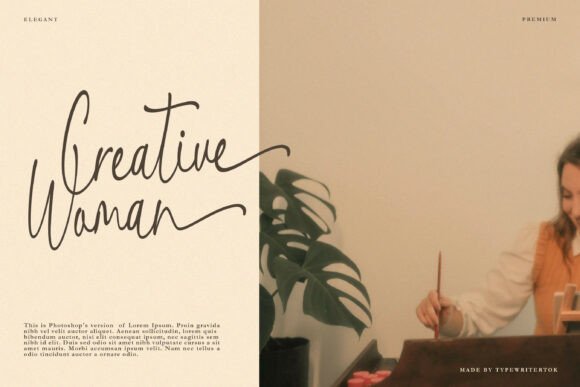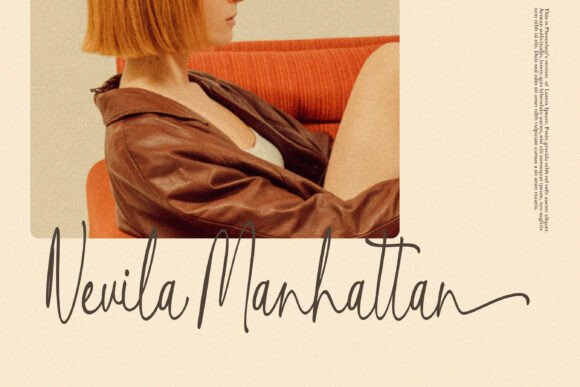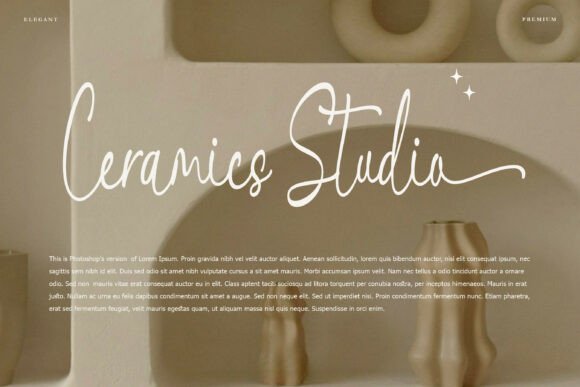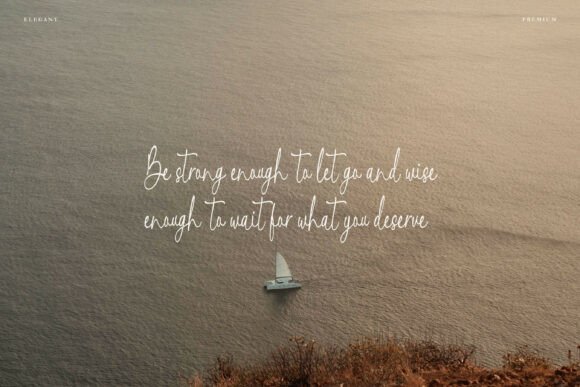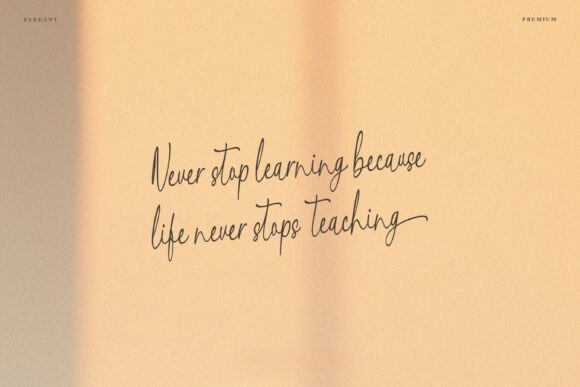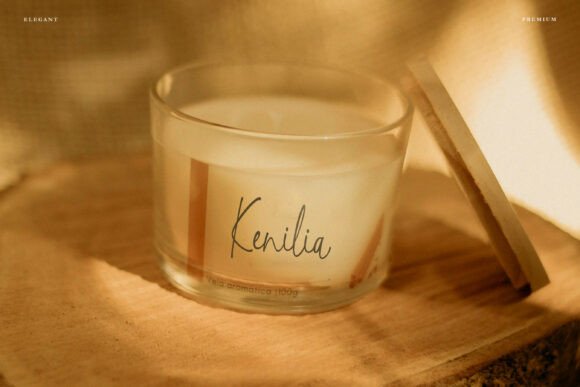
Introducing Benetta Font: Elevate Your Designs with Elegant Handwritten Charm
In the world of typography, few fonts manage to capture the essence of elegance, warmth, and natural charm as effortlessly as Benetta Font. This beautiful handwritten script typeface is meticulously designed to bring a touch of sophistication and personality to your designs, making it an ideal choice for creative projects that demand a refined aesthetic. Whether you’re a designer, crafter, or simply someone who appreciates the art of typography, Benetta Font is sure to captivate you with its smooth flowing strokes, graceful curves, and expressive handwritten details.
The Characteristics of Benetta Font
Benetta Font boasts a modern script character that is both stylish and versatile. Its key features include:
- Smooth Flowing Strokes: Benetta’s strokes are fluid and seamless, creating a sense of movement and fluidity that adds dynamism to your designs.
- Graceful Curves: The font’s curves are meticulously crafted to provide a sense of elegance and sophistication, making it perfect for projects that require a touch of refinement.
- Expressive Handwritten Details: Benetta’s handwritten details add a personal touch to your designs, making them feel more approachable and relatable.
Benetta Font is incredibly versatile and can be used for a wide range of creative projects, including:
- Branding: Establish a strong brand identity with Benetta’s elegant and sophisticated typography.
- Invitations: Create beautiful and memorable invitations for special occasions, such as weddings, birthdays, and anniversaries.
- Packaging: Elevate your product packaging with Benetta’s refined typography, adding a touch of luxury and sophistication to your products.
- Social Media Content: Make your social media content stand out with Benetta’s stylish and engaging typography, perfect for creating eye-catching graphics and posts.
Why Choose Benetta Font?
With so many fonts available, why choose Benetta Font? Here are just a few reasons why Benetta stands out:
- Timeless Elegance: Benetta’s classic design ensures that your projects will remain stylish and relevant for years to come.
- Handwritten Charm: Benetta’s handwritten details add a personal touch to your designs, making them feel more approachable and relatable.
- Versatility: Benetta’s versatility makes it suitable for a wide range of creative projects, from branding and advertising to packaging and social media content.
Tips for Using Benetta Font
To get the most out of Benetta Font, here are a few tips to keep in mind:
- Pair with Neutral Backgrounds: Benetta’s elegant typography is best paired with neutral backgrounds, allowing the font to take center stage.
- Use for Headings and Titles: Benetta Font is perfect for headings and titles, adding a touch of elegance and sophistication to your designs.
In conclusion, Benetta Font is a beautiful and elegant handwritten script typeface that is sure to elevate your designs to new heights. With its smooth flowing strokes, graceful curves, and expressive handwritten details, Benetta creates a stylish visual appearance that feels both personal and sophisticated. Whether you’re a designer, crafter, or simply someone who appreciates the art of typography, Benetta Font is an excellent choice for any creative project that demands refinement, elegance, and a touch of handwritten charm.